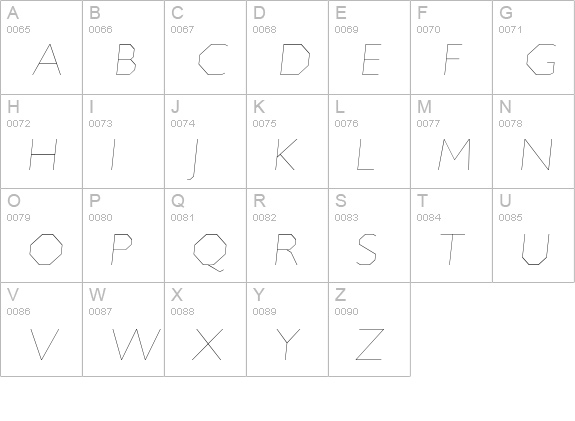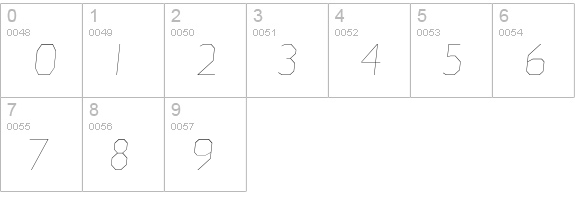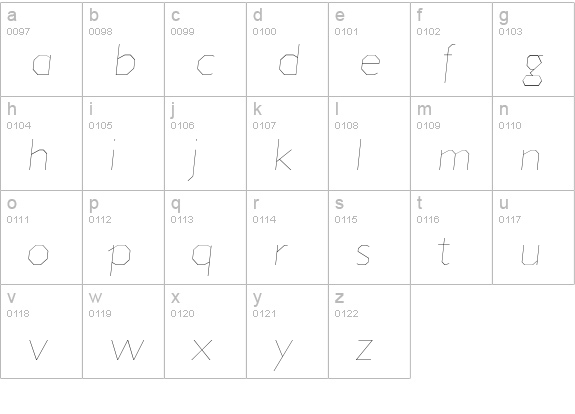
Jillican UltraLight Italic is an airy, ultra-refined, italic variant in the Jillican typeface family \xE2\x80\x94 well suited to minimalist headlines and refined display use.
The Jillican UltraLight Italic font is a sleek and modern typeface that exudes elegance and sophistication. Its delicate and airy design lends a touch of refinement to any project, making it perfect for fashion, beauty, and luxury branding. The italicized style adds a dynamic and stylish flair, making it ideal for creating eye-catching headlines and captions. What sets the Jillican UltraLight Italic font apart is not only its striking appearance but also its versatility. Whether you're designing a magazine layout, creating social media graphics, or crafting elegant wedding invitations, this font will elevate your work to the next level. Best of all, the Jillican UltraLight Italic font is available for free download at FontsMarket.com, allowing you to access this premium typeface without any cost. Don't miss out on the opportunity to enhance your designs with this sophisticated and stylish font today!